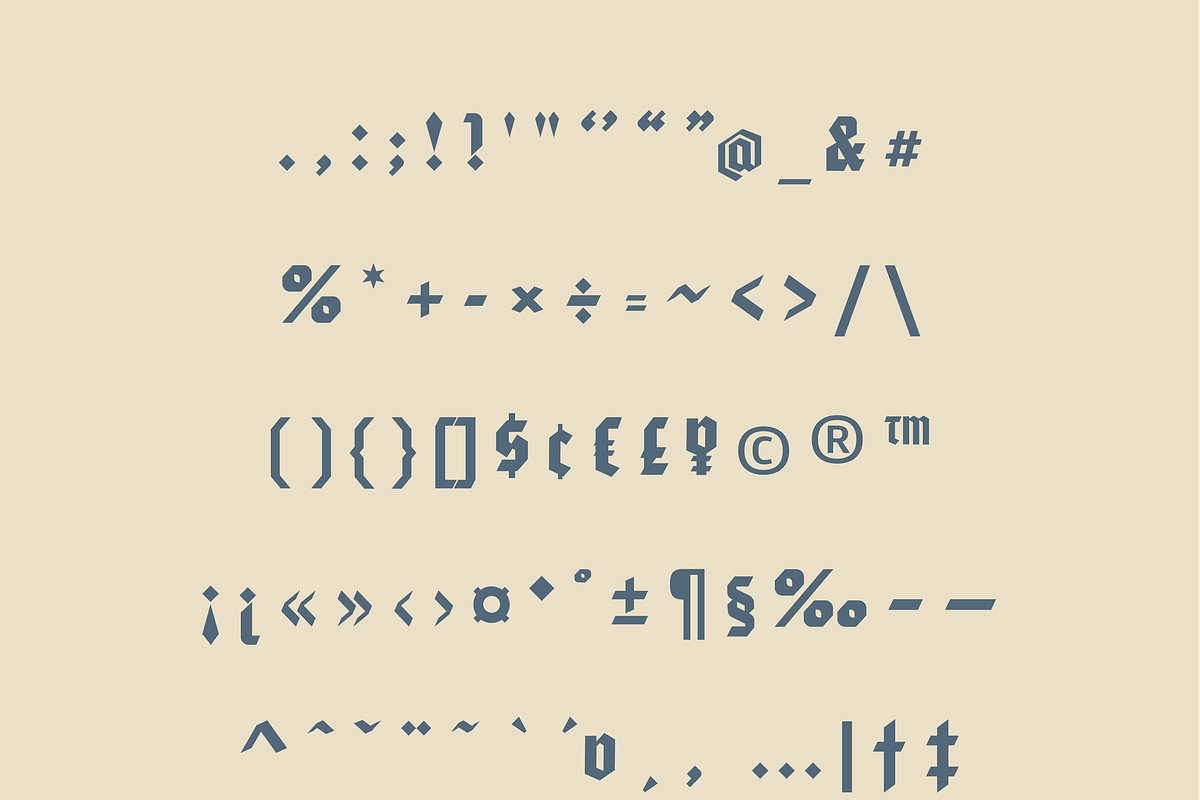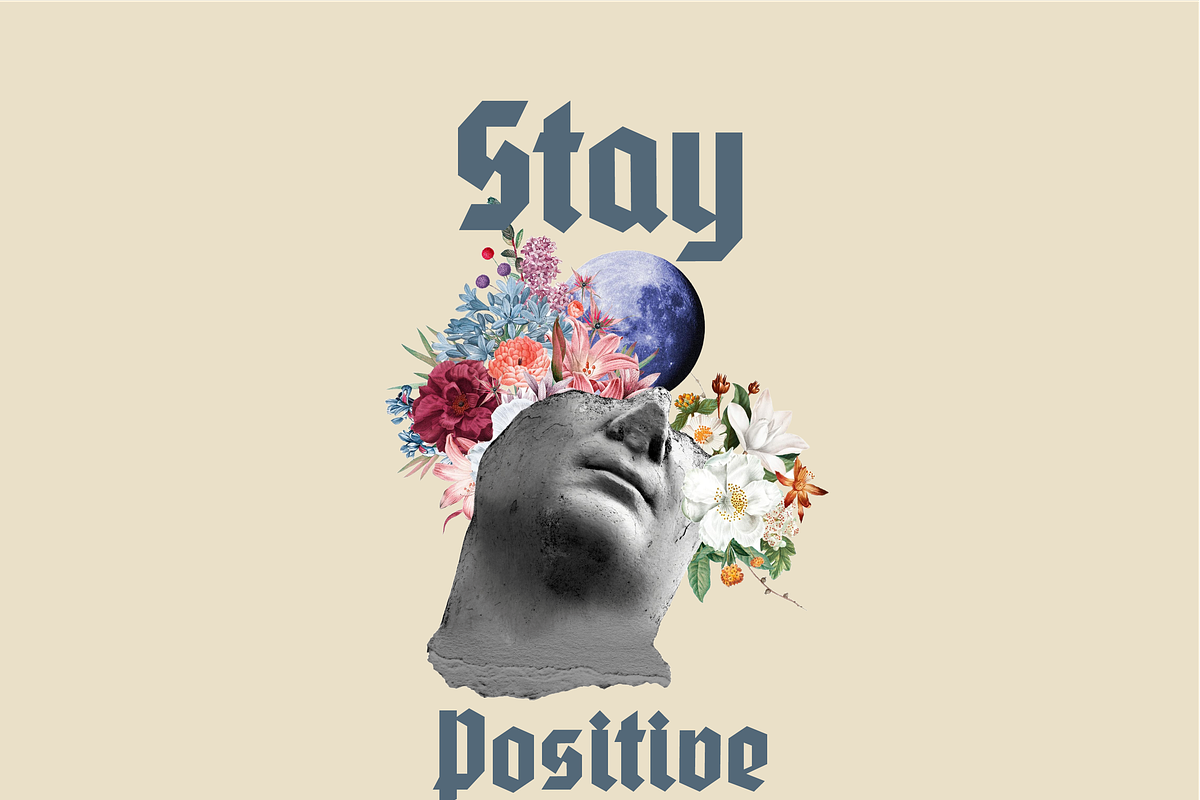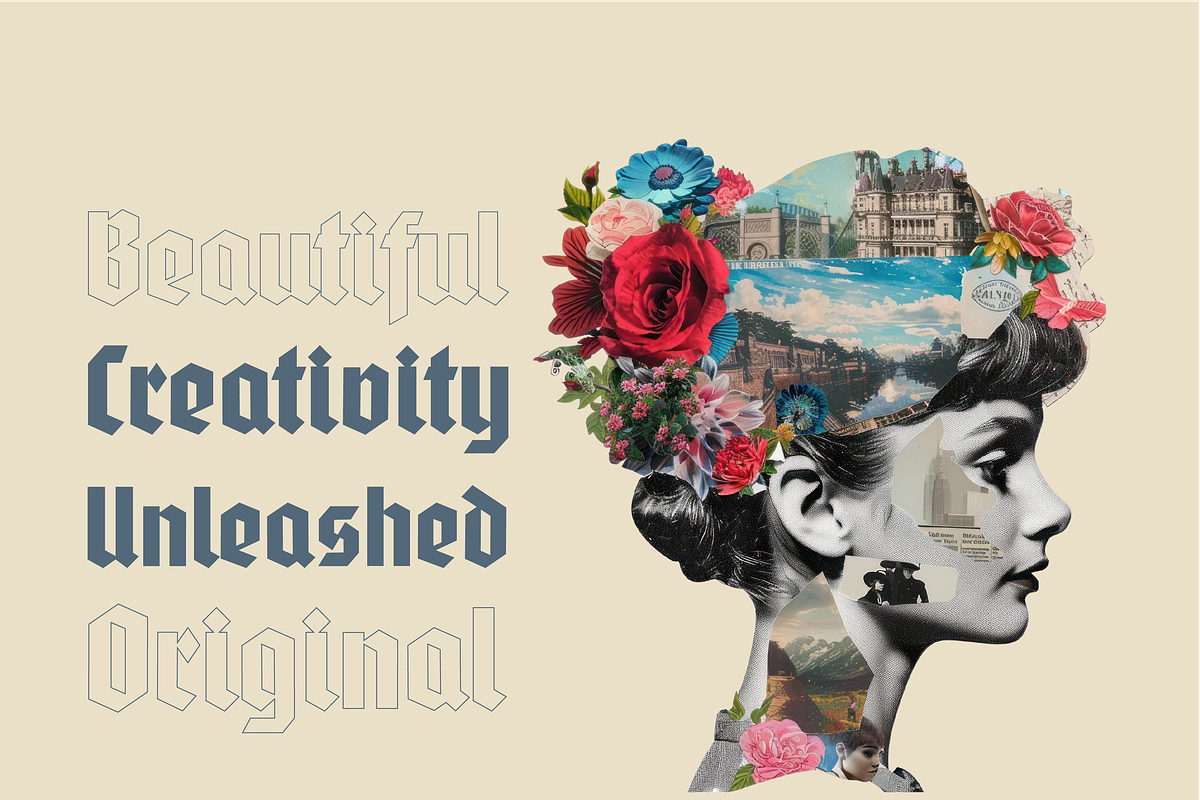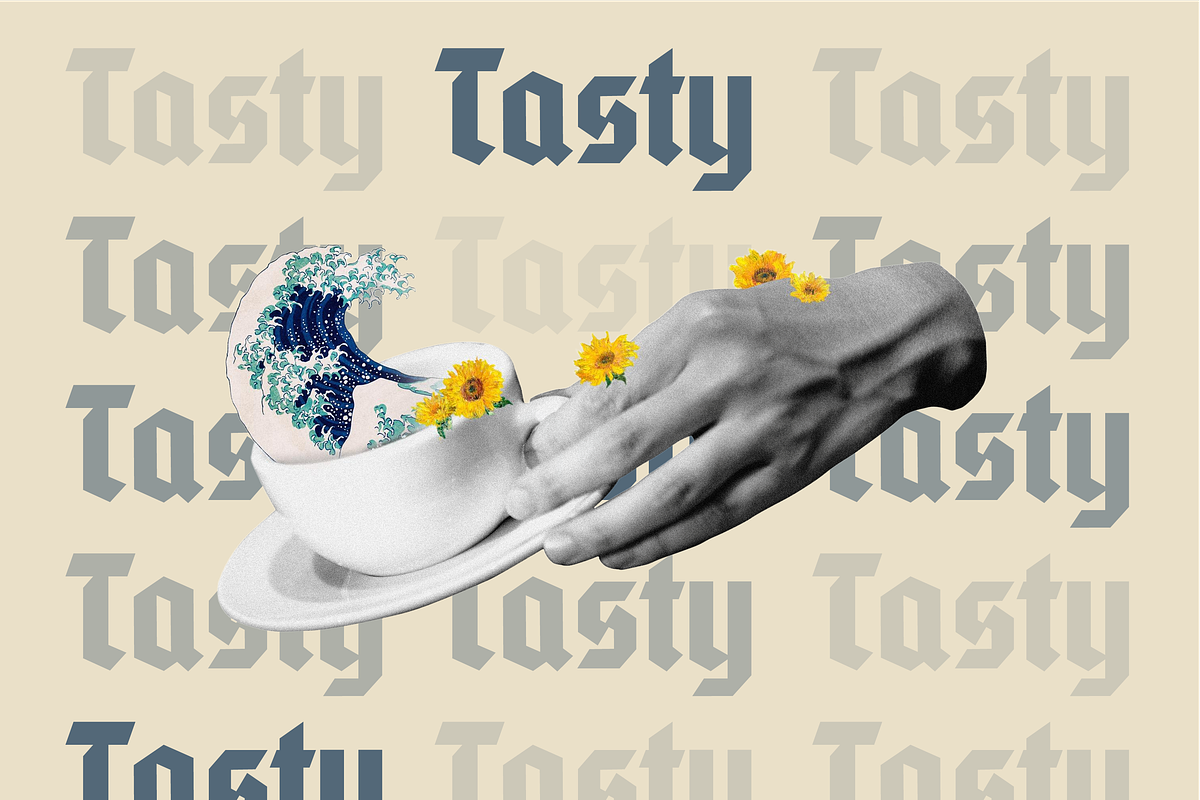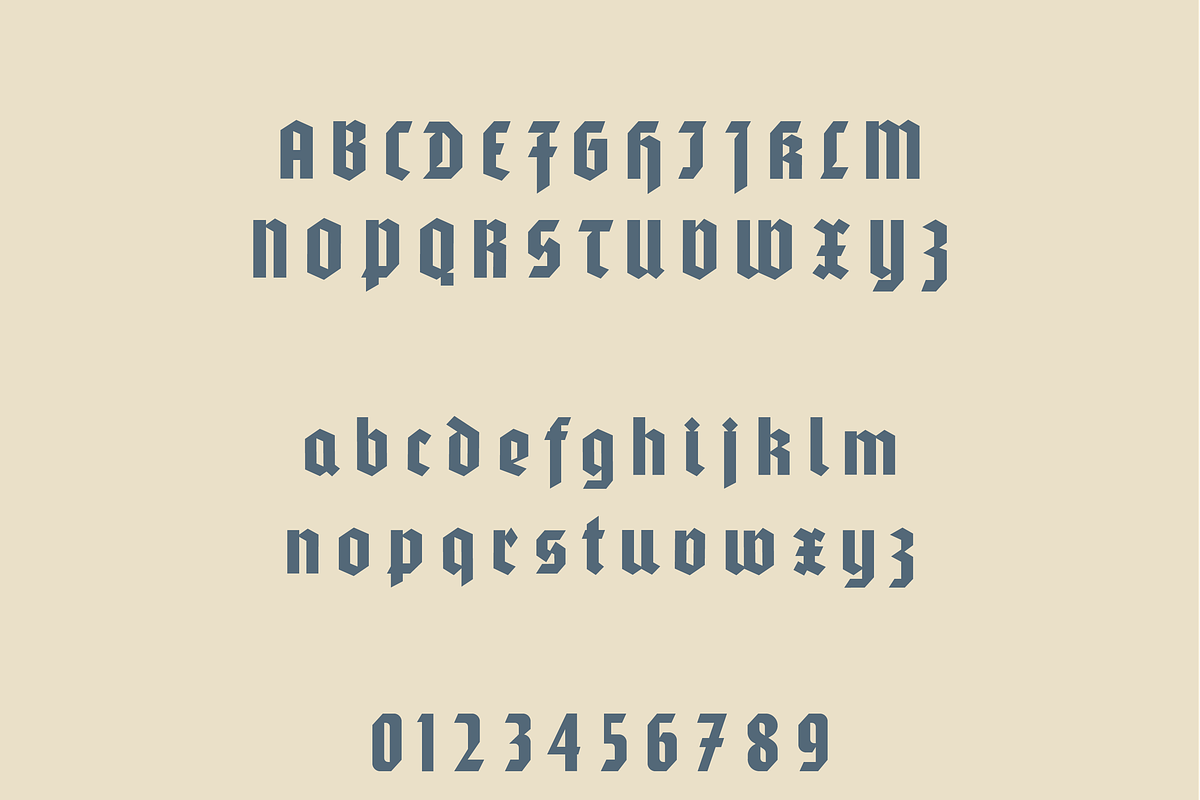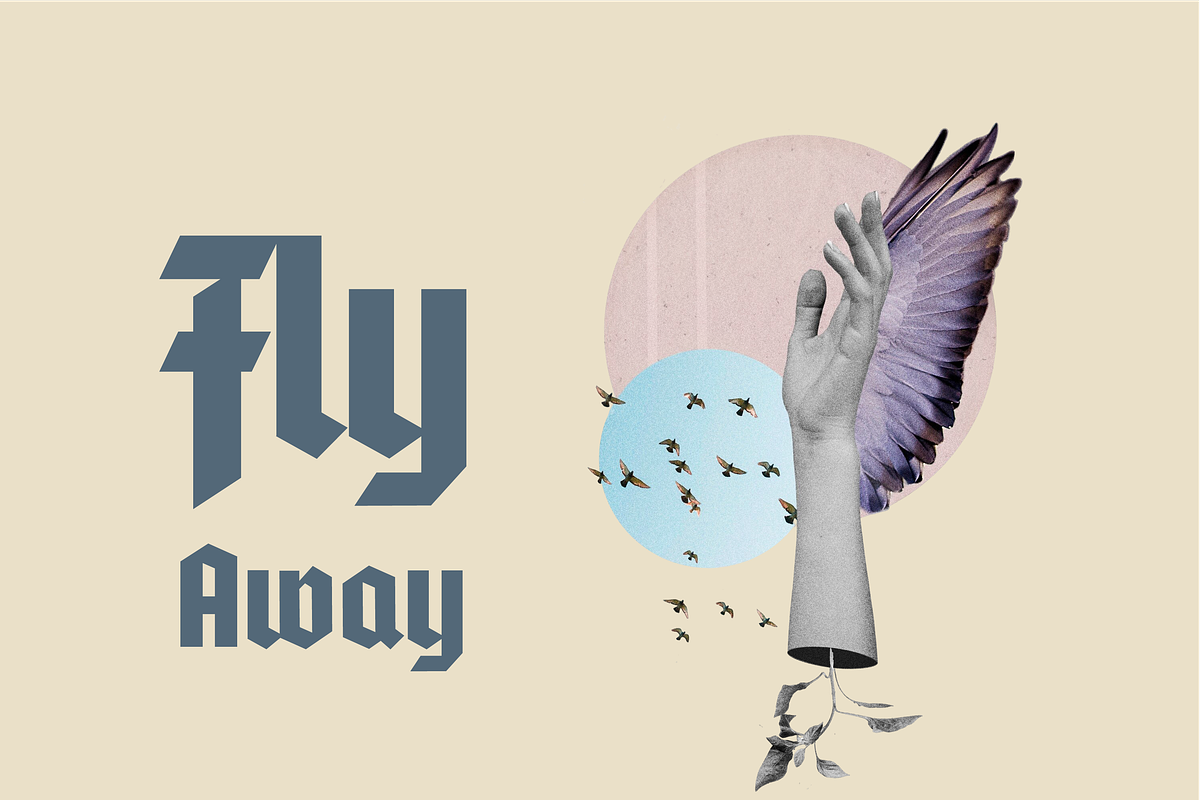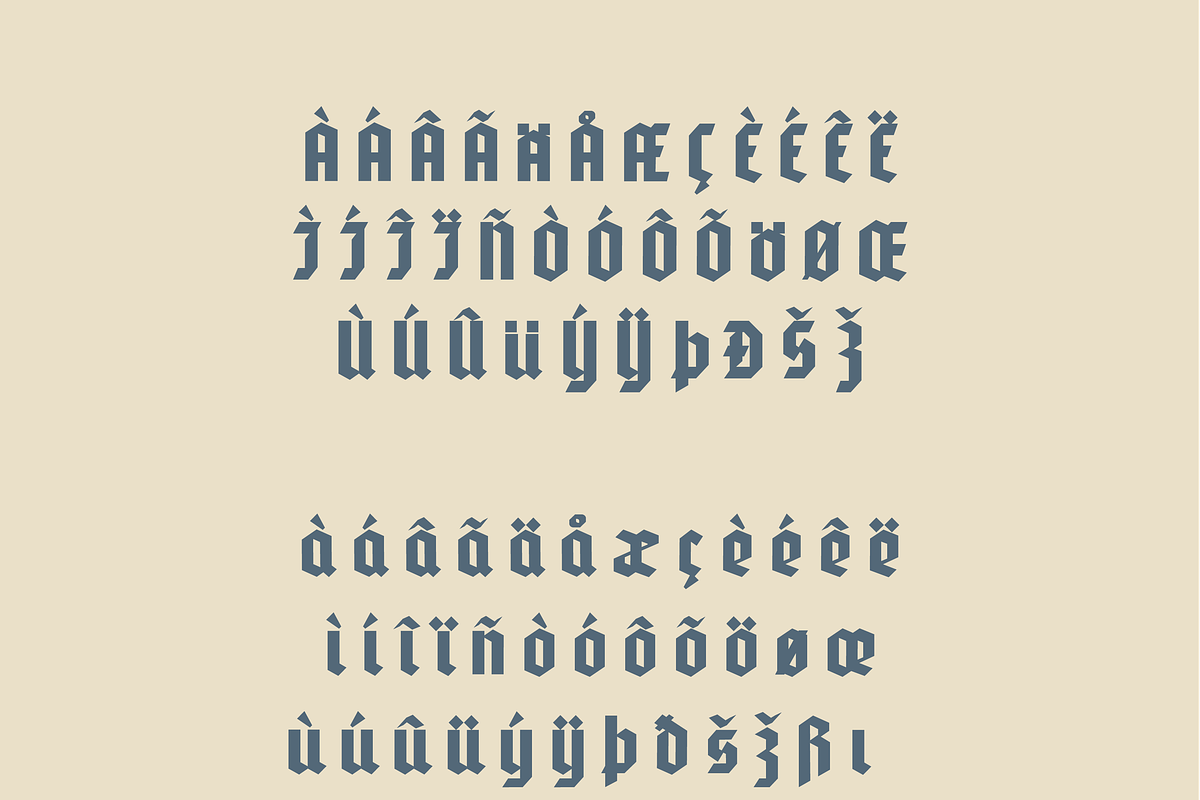
Scuro – A Bold and Edgy Blackletter
Scuro – A Bold and Edgy Blackletter Typeface
Scuro is a powerful and hard-hitting blackletter font that exudes strength with its sharp, straight-lined design—reminiscent of raw concrete slabs. It strips away excessive ornamentation, embracing the essence of plain Gothic typefaces with an industrial edge.
Designed for projects that demand a striking, high-impact aesthetic, Scuro's structured letterforms create an unmissable presence. Whether used in branding, headlines, or gritty urban designs, this font ensures bold visual impact.